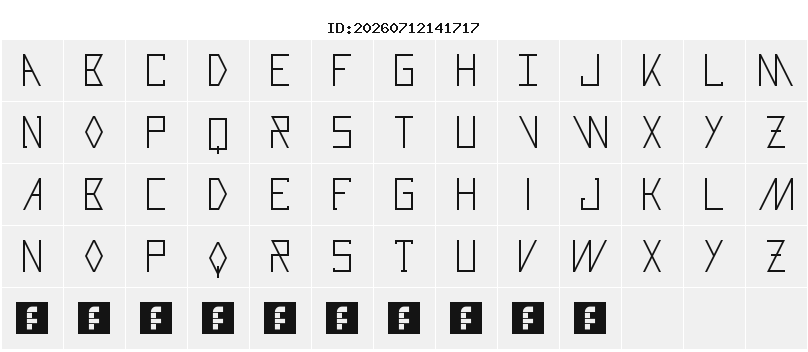
• Font Name: Razorblade
• Designer: GeronimoFonts
• Description: ‚ÄúRazorblade‚Äù was built with FontStruct
About Razorblade.ttf
Razorblade.ttf is a modern, elegant sans-serif font designed for ultimate readability and visual harmony. Perfect for branding, headlines, web design, and print materials.